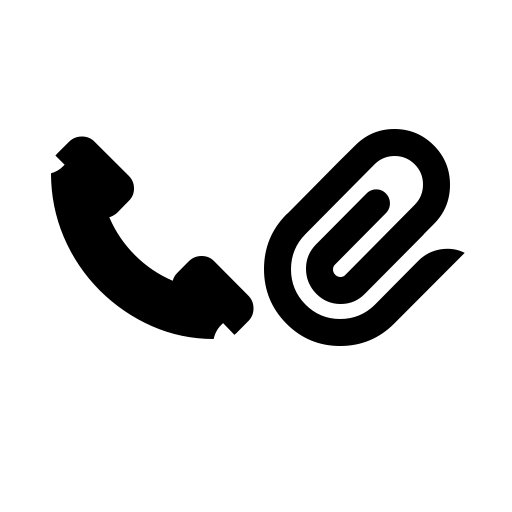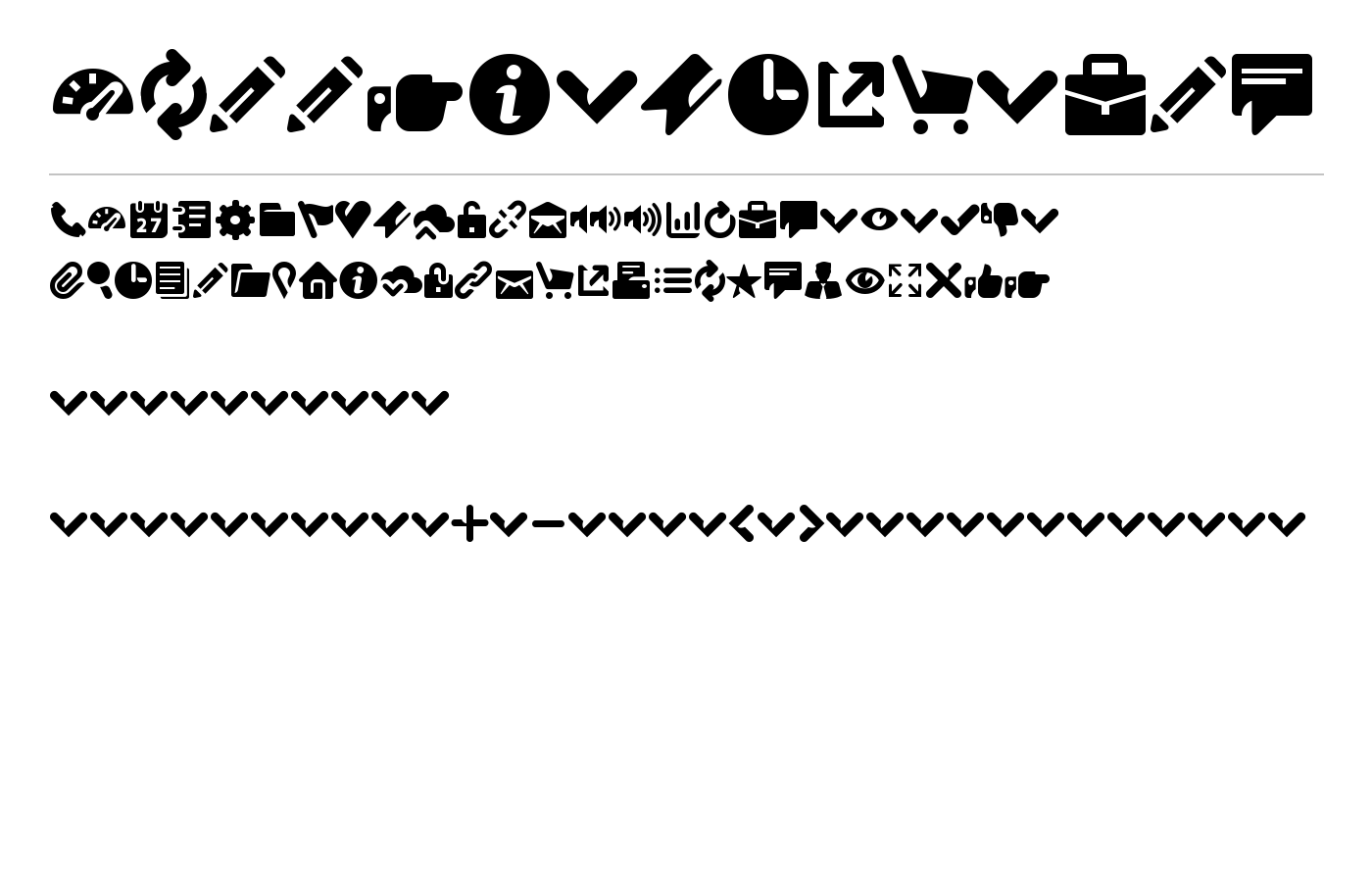
Breezi Icon Set is a bold, solid icon font designed with clear, geometric shapes that ensure strong visibility and easy recognition at various sizes. Its compact, uniform icons make it perfect for user interfaces, websites, and apps where clear, intuitive graphic communication is essential. This font works well in digital environments that require straightforward, modern iconography to support navigation and actions.